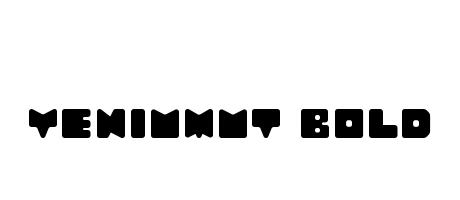
YeniUmut
By Umut Yildirim
YeniUmut Bold is a bold, geometric sans-serif typeface. Its chunky, uppercase letters have slightly irregular, almost playful, shapes, especially noticeable in the rounded corners and subtle variations in letter width. The overall impression is one of strong, friendly confidence. The boldness adds a sense of impact and readability.